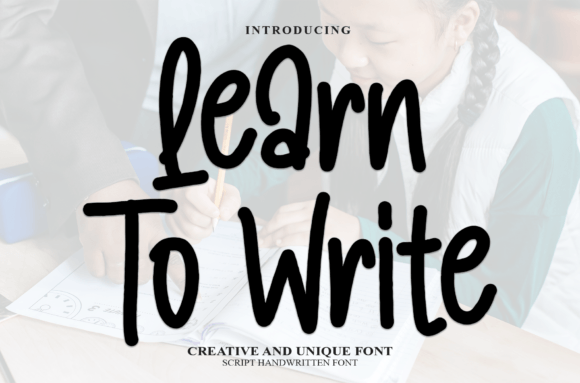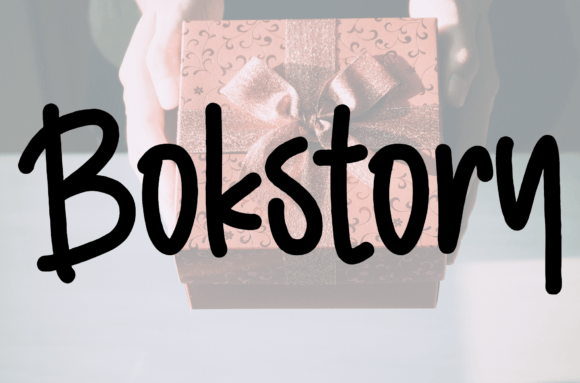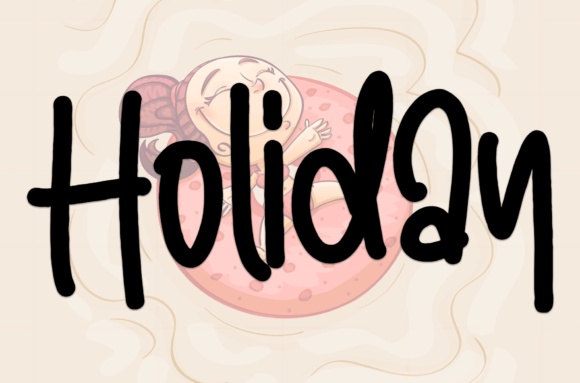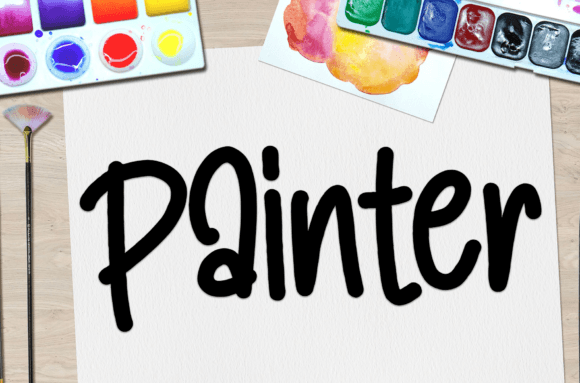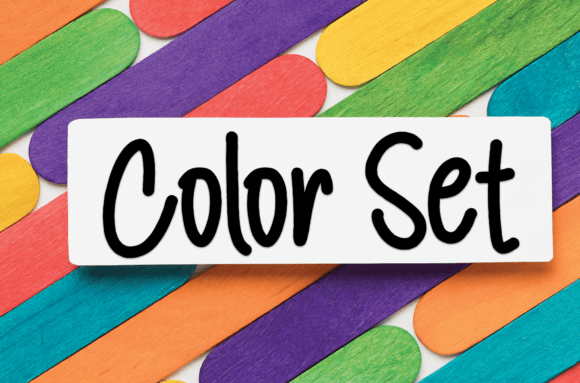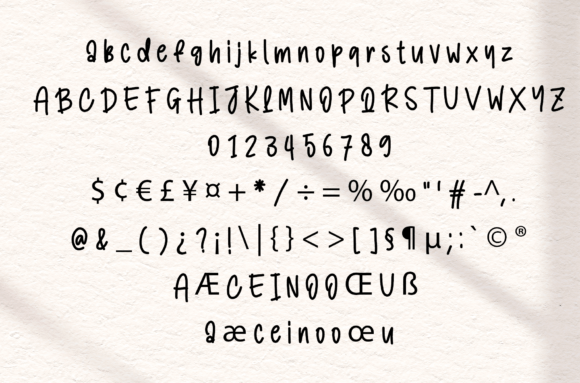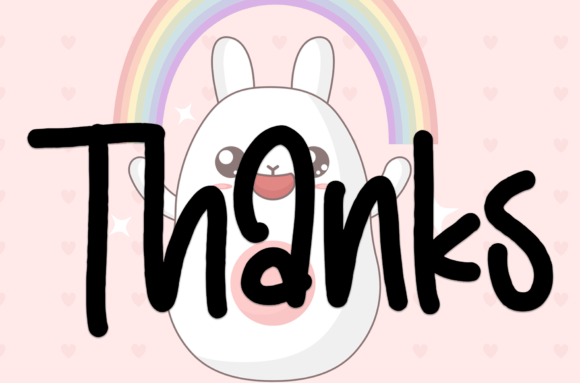
What Is Learn to Write Font?
Learn to Write is a sweet and friendly handwritten font designed to bring a fun, playful feel to your projects. With its charming curves and approachable style, this font helps every design feel warm and inviting. Because it was crafted with care, Learn to Write is perfect for personal and professional uses alike.
You’ll love how easily it transforms your ideas into lively, engaging creations.
Learn to Write is a versatile font suitable for many design applications. For example, it’s a great choice for wedding invitations. Whether you’re designing formal invites or playful save-the-date cards, this font adds a joyful, personal touch.
It also works beautifully for greeting cards. If you want your messages to feel genuine and fun, Learn to Write helps you express every sentiment with heart.
Additionally, this font is perfect for social media graphics. Whether you’re sharing quotes, promotions, or announcements, Learn to Write adds a friendly, approachable style that draws attention.
You can also use it in branding and packaging. When you want your business to feel lighthearted and unique, this font helps you stand out.
From event signage and DIY crafts to personalized gifts and product labels, Learn to Write adapts easily to any creative idea.
Why Should You Choose Learn to Write Font?
There are many reasons to add Learn to Write to your font collection. First, it is highly legible in any size. Whether you use it for large headlines or small captions, every letter remains clear and balanced.
It also pairs well with modern sans-serif fonts, helping you create clean and cohesive layouts without much effort.
Designers appreciate how polished it looks immediately, saving time while achieving professional results.
Learn to Write Font brings joy, friendliness, and a sense of playfulness to every project. For example, if you want your designs to feel light and approachable, this font makes it simple.
Even minimalist layouts feel more welcoming with its soft strokes and cheerful style. Whether you’re creating wedding stationery, social media posts, or branding materials, your work will stand out beautifully.
Using a high-quality handwritten font also shows your commitment to detail, helping build trust and leave a lasting impression.
Learn to Write Font is more than just a typeface—it’s a creative companion that helps you share ideas with a sweet, fun spirit. From invitations and cards to packaging and social media, this font adapts effortlessly and elevates any design.